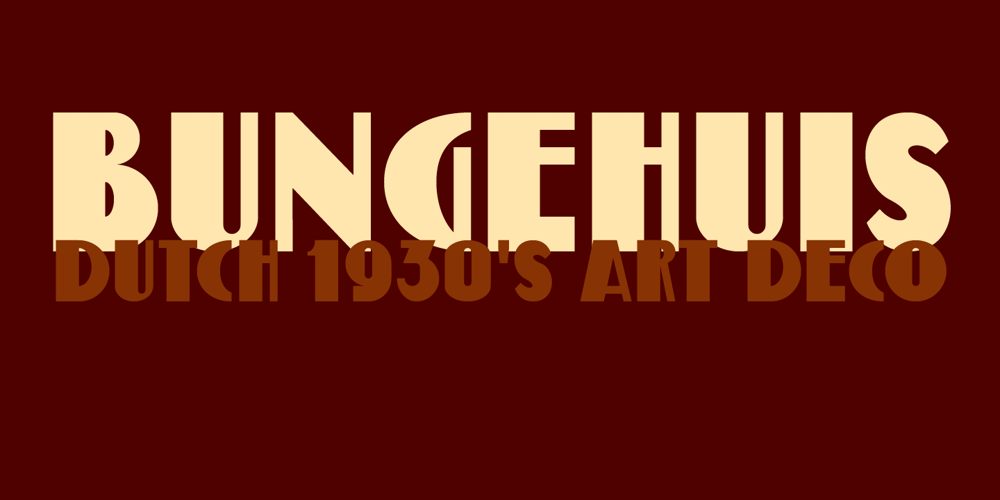
Bungehuis Font Family was designed by David Kerkhoff and published by Hanoded. Bungehuis contains 2 styles and family package options. Bungehuis font was modeled on the lettering found on an Amsterdam art deco building from 1931. This building on the Spuistraat, also called “Het Bungehuis”, used to house offices, but is now part of the University of Amsterdam. In 2015 it had its brief moment of fame, when students, demanding more democracy at the University, occupied it. Bungehuis is a heavy art deco font and would look great on posters and in headlines. It comes with a rather democratic range of diacritics.